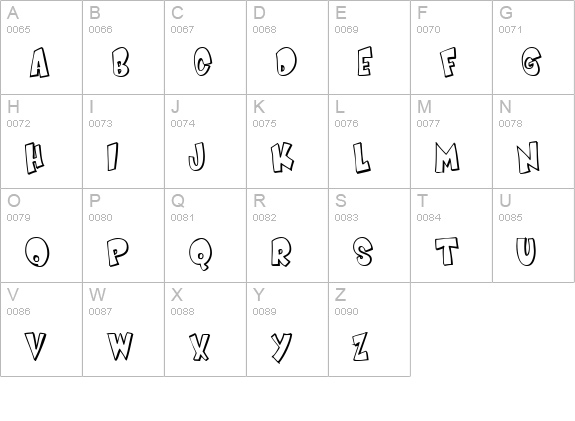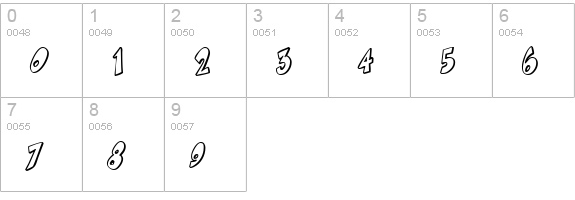
Smartie CAPS Font Details
Smartie CAPS font is a delightful and playful typeface that brings a touch of whimsy to any design project. With its rounded edges and bold strokes, this font is perfect for creating eye-catching headlines, logos, and posters. The letters are elegantly crafted, giving them a unique personality that stands out from the crowd. Designed with versatility in mind, Smartie CAPS font can be used for both personal and commercial projects. Whether you're designing a birthday invitation, a children's book cover, or a website banner, this font will add a fun and energetic vibe to your creations. One of the best things about Smartie CAPS font is that it is free to download. Yes, you read that right! This amazing font is freely available at FontsMarket.com, allowing you to enhance your designs without breaking the bank. So why wait? Go ahead and grab this fantastic font today and let your creativity soar!